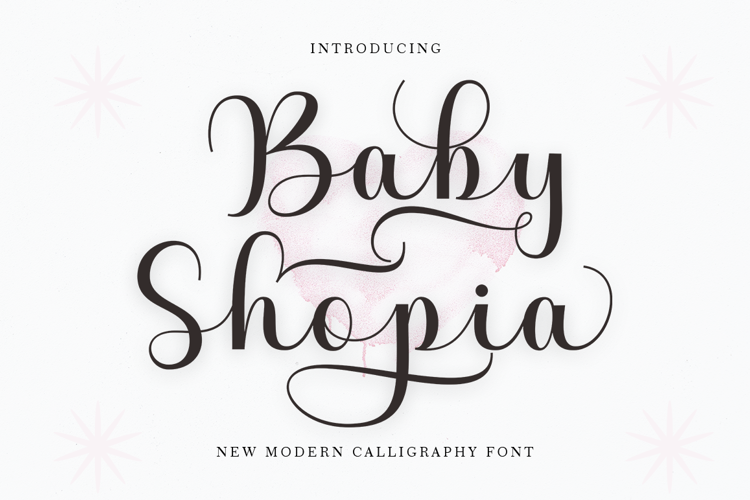
Baby Shopia Font
Baby Shopia is a beautiful and beautiful script font with lots of alternative styles, ligatures, swashes and multilingual glyphs.
Baby Shopia can be used for various applications, such as wedding designs, logos, posters, business cards, invitations, social media posts, and more.